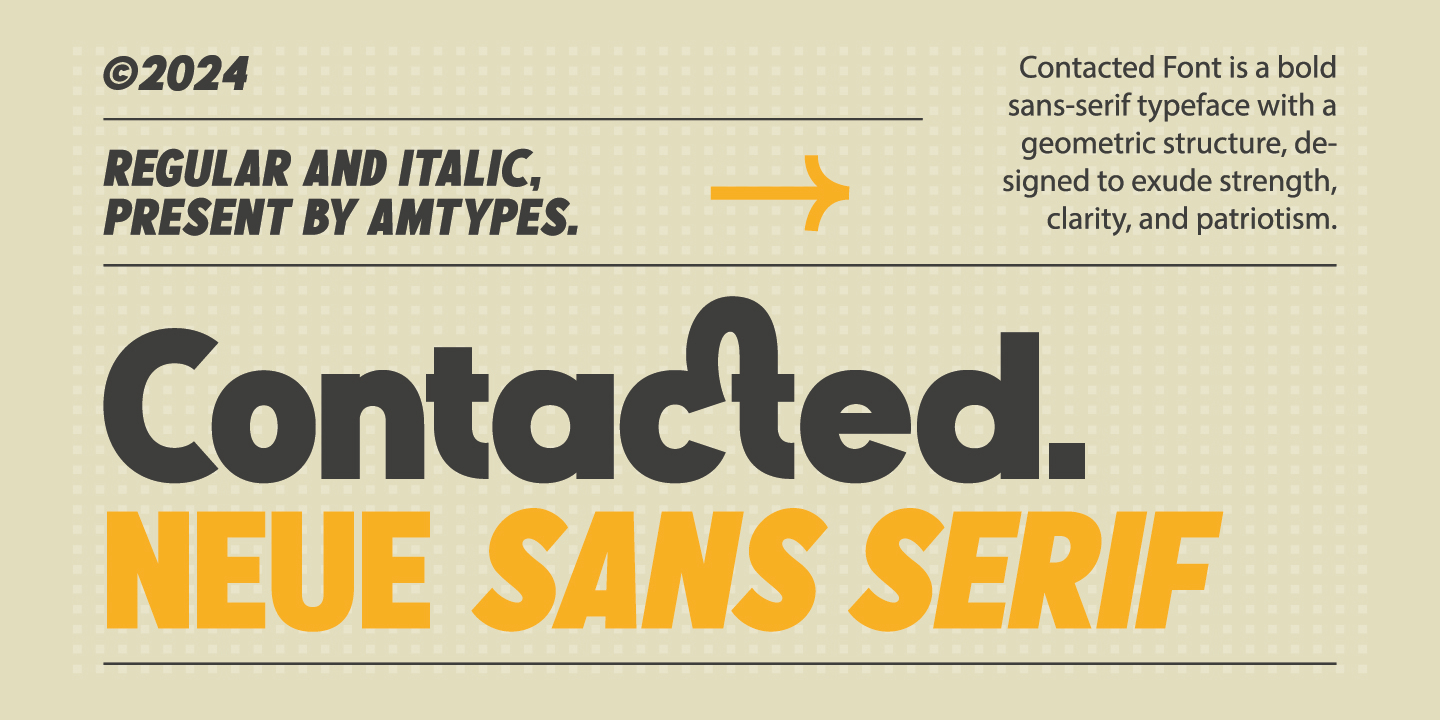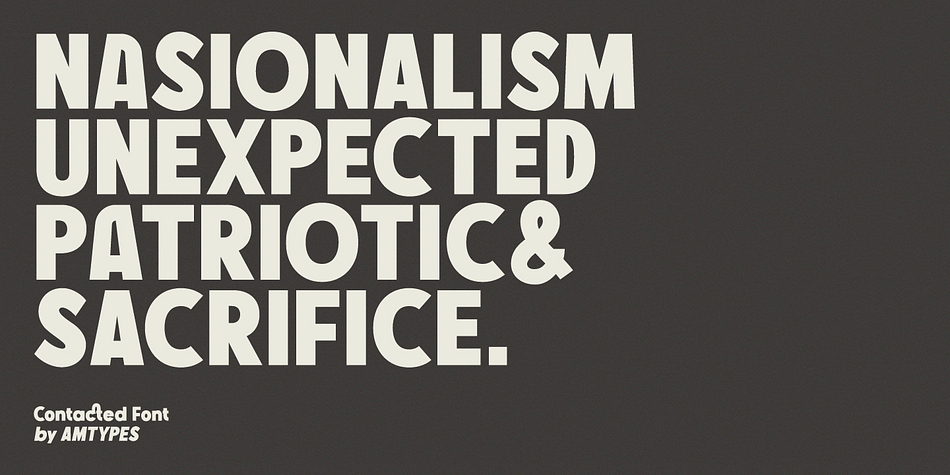
Contacted
Designed by Angga Mahardika, Contacted is a sans serif font family. This typeface has two styles and was published by Angga Mahardika.
Contacted Font is a bold sans-serif typeface with a geometric structure, designed to exude strength, clarity, and patriotism. Its bold appearance makes it perfect for impactful graphic designs such as posters, slogans, or advertising where a commanding visual presence is essential. The font’s minimalist and modern qualities also make it versatile for various creative projects.
Foundry Angga Mahardika
Designer Angga Mahardika